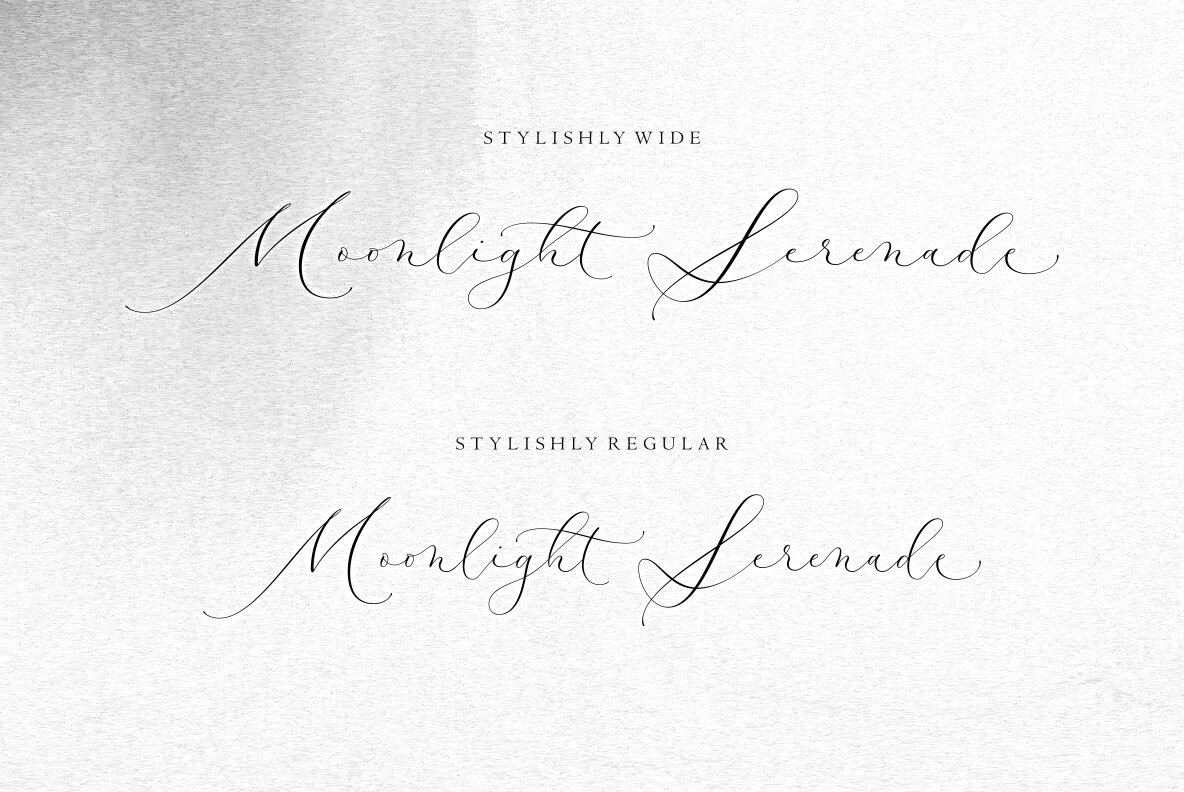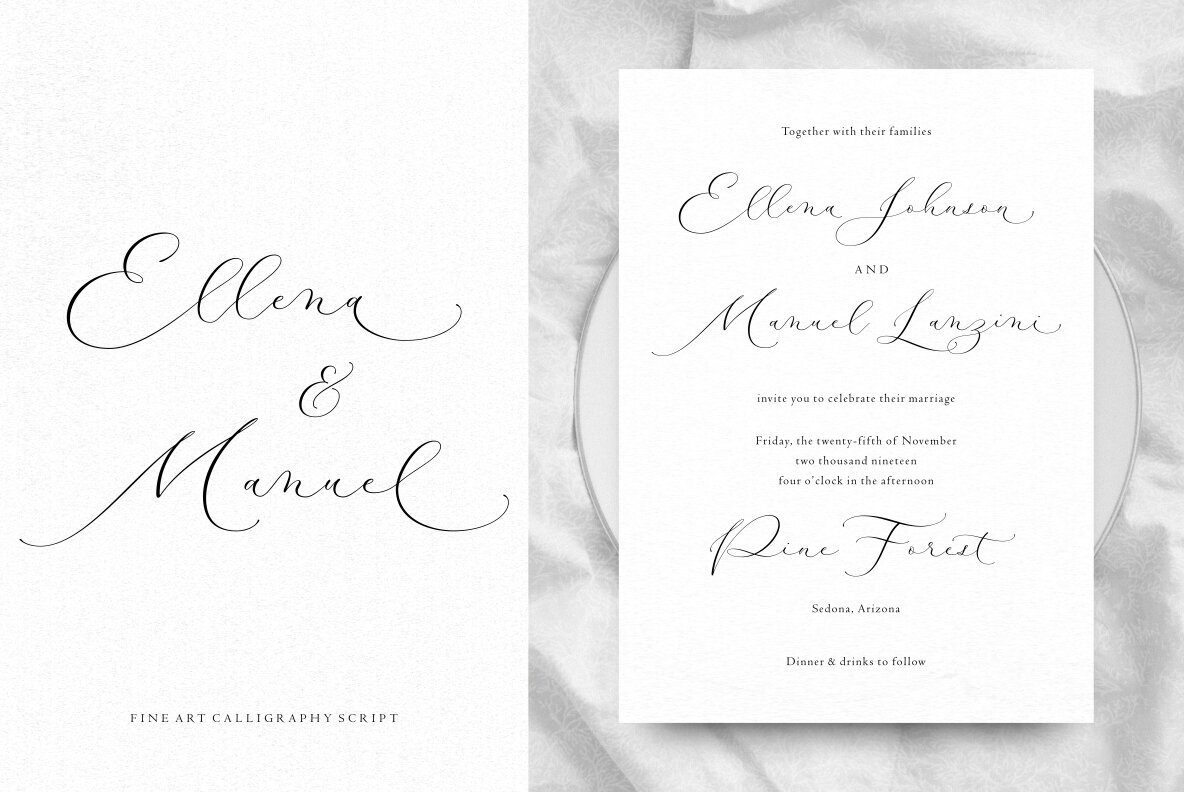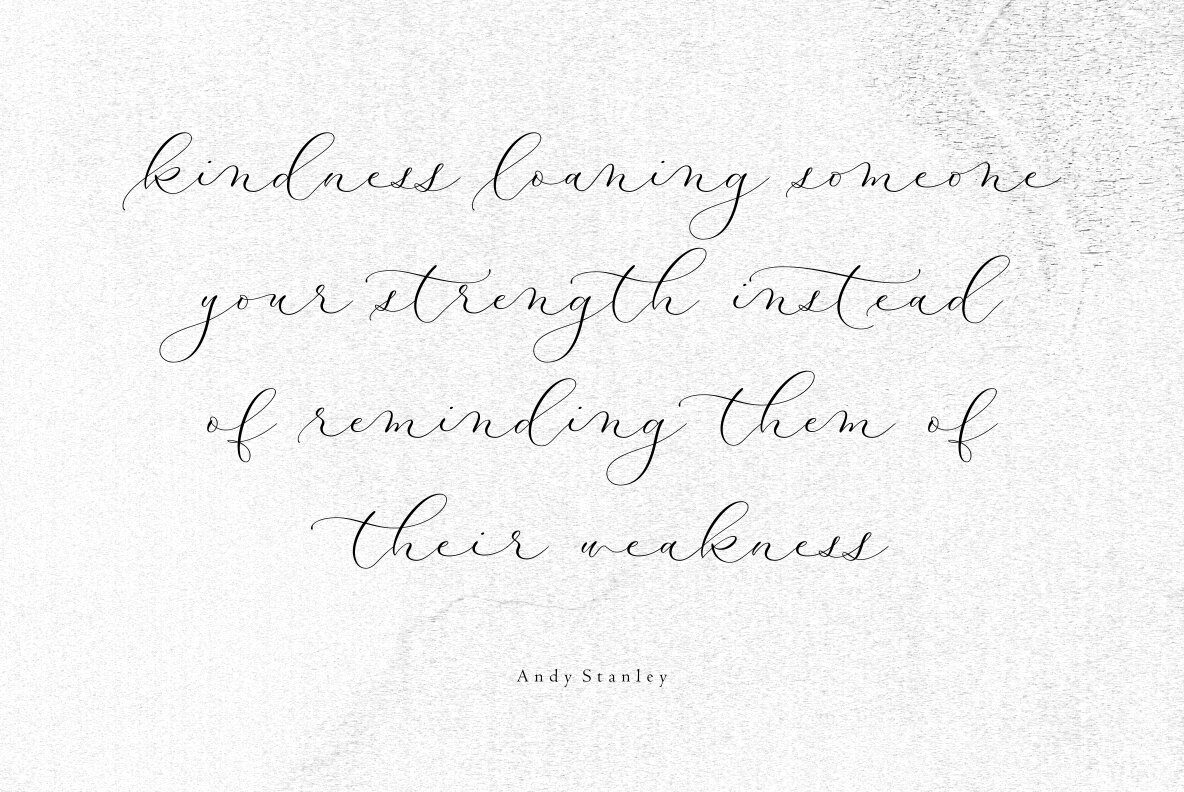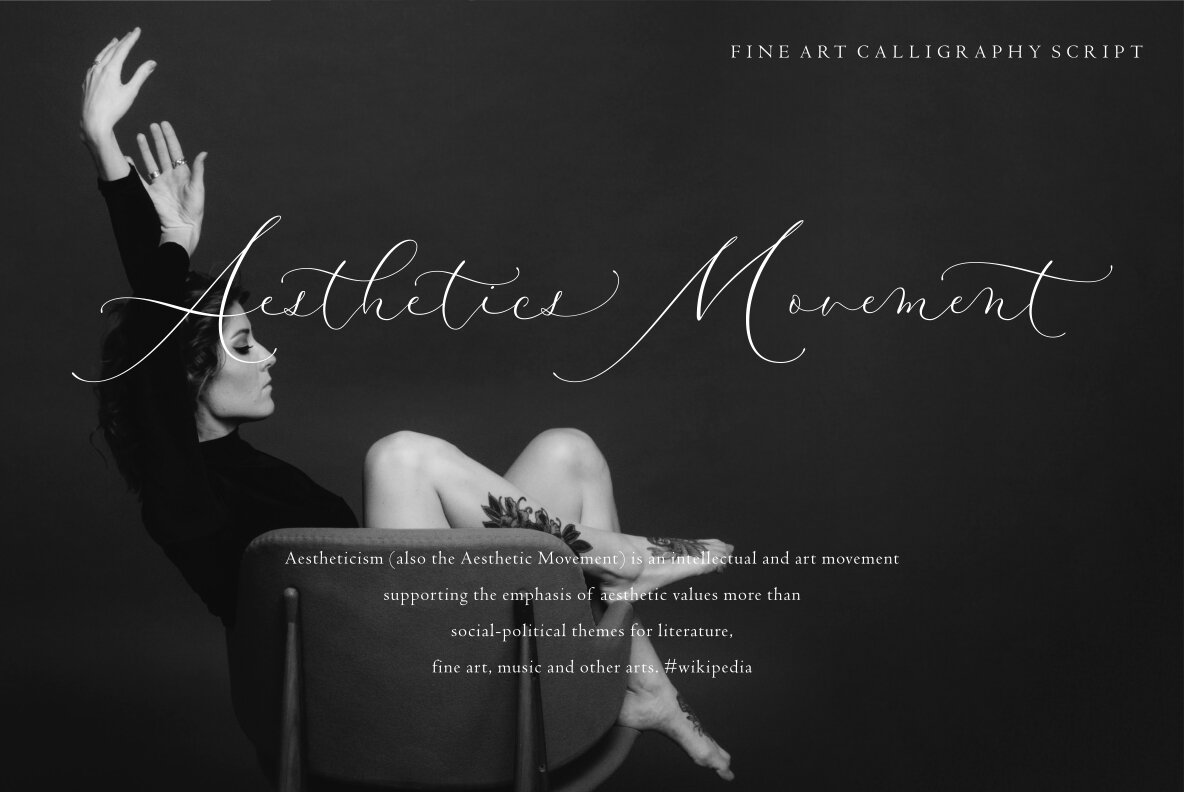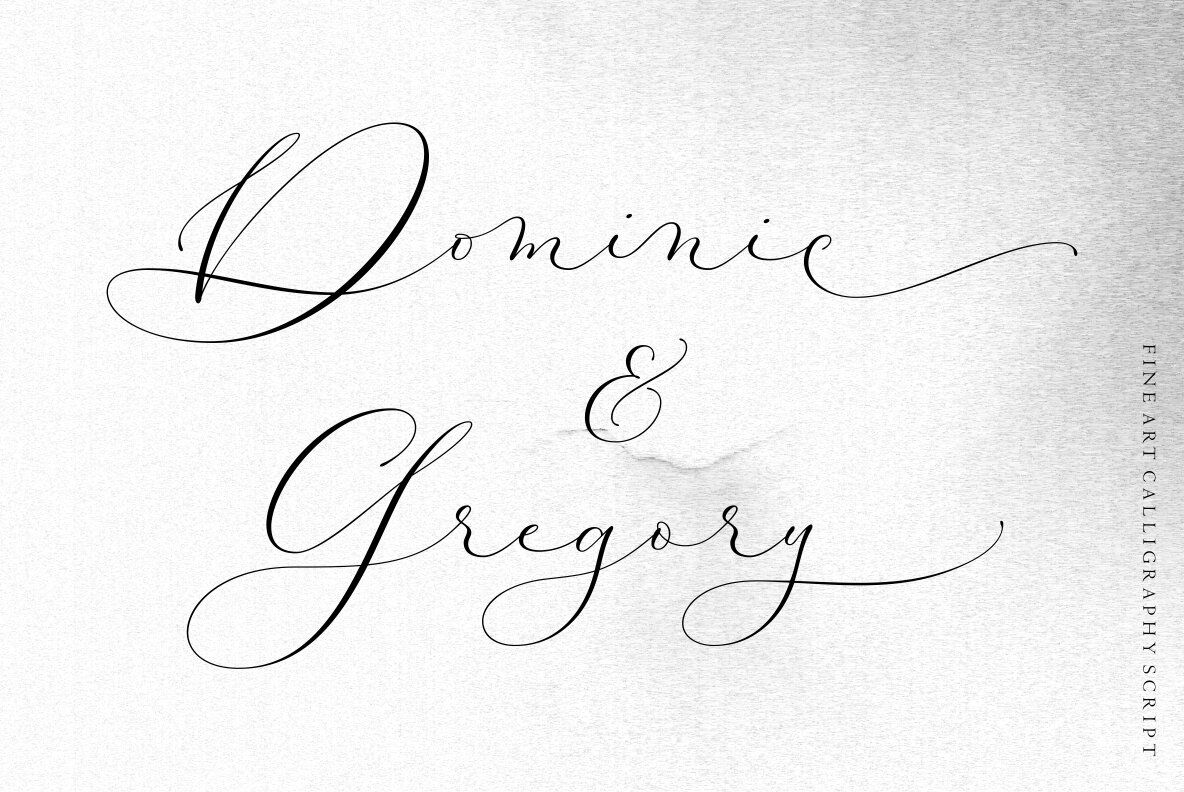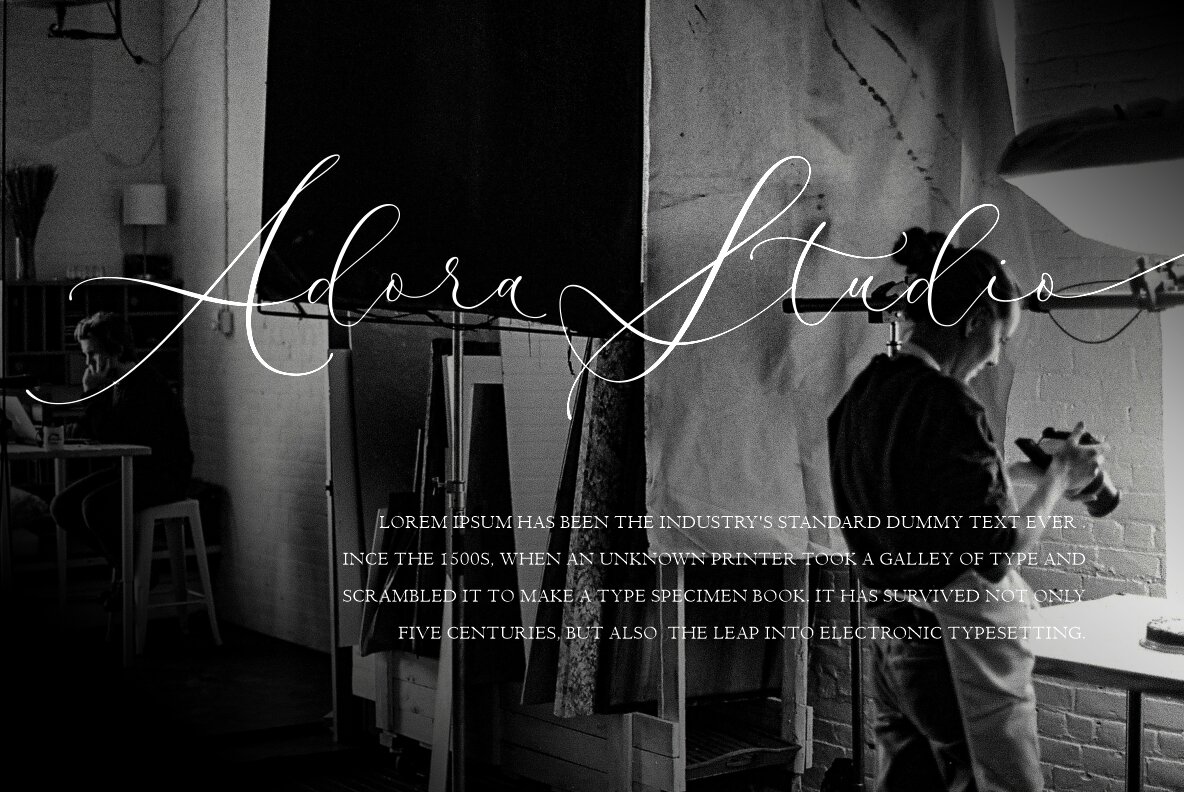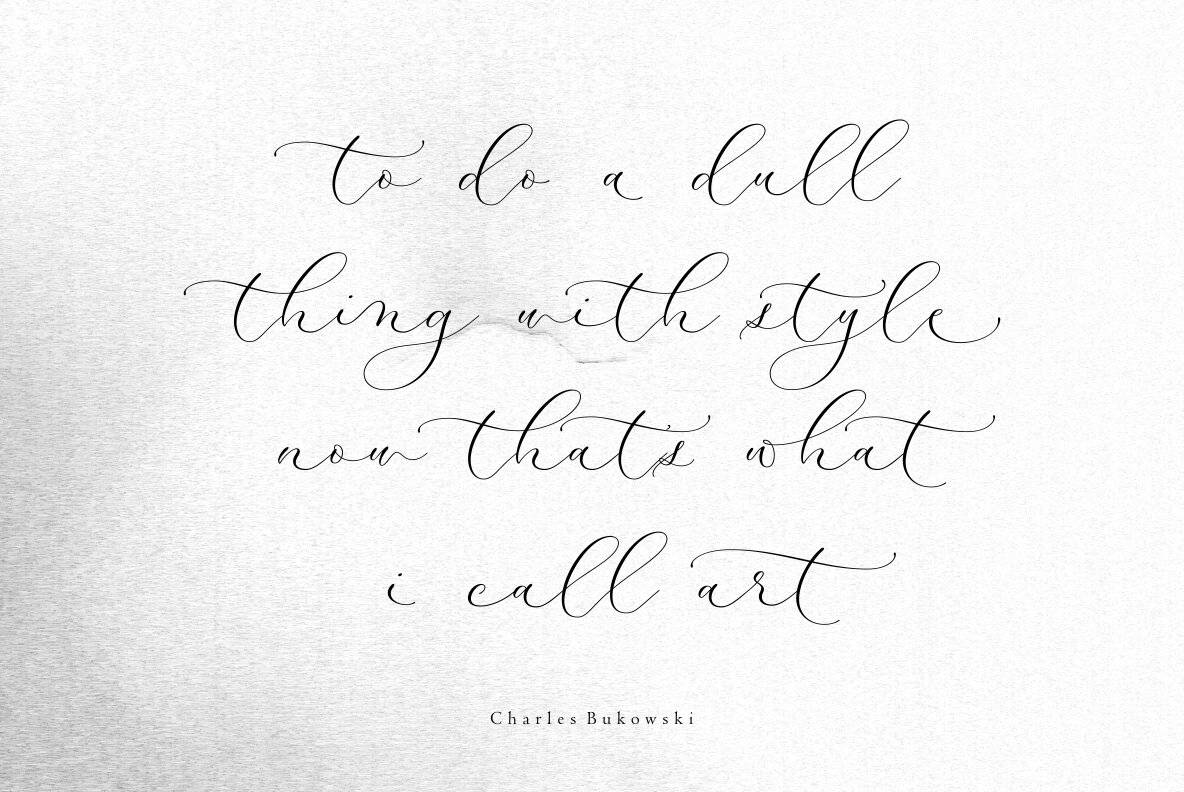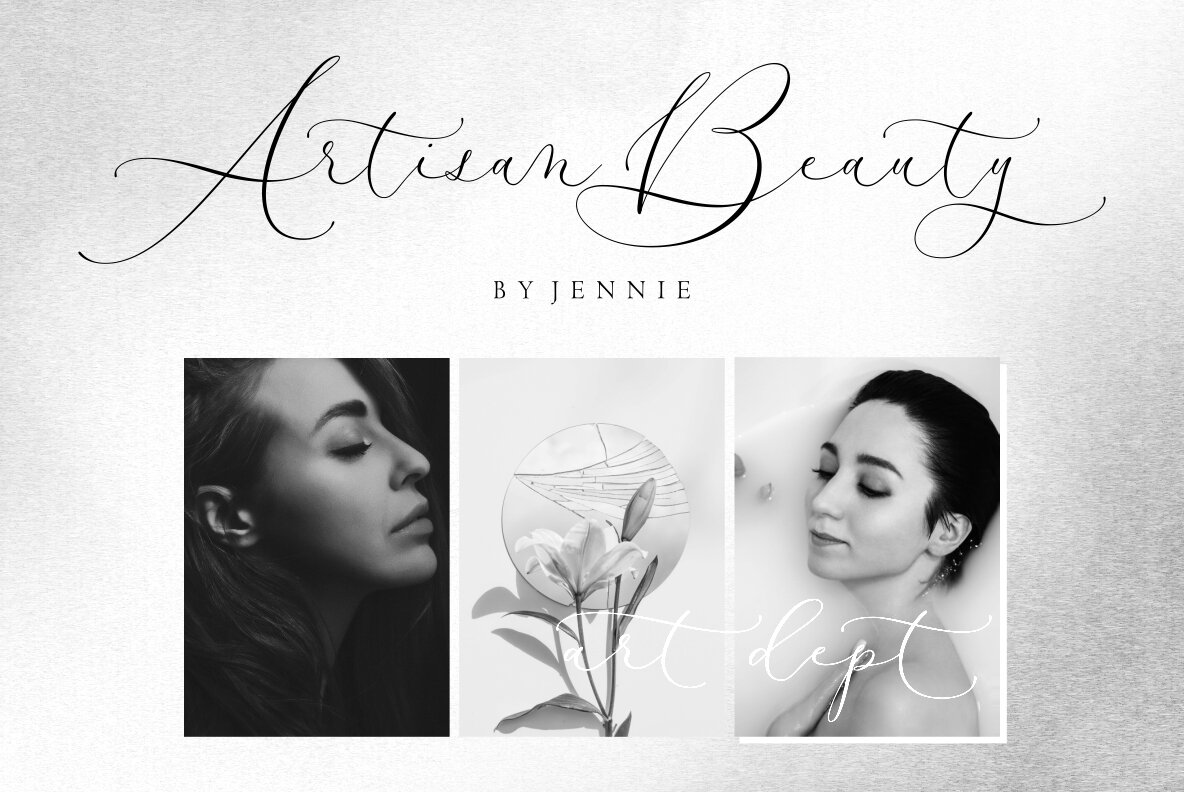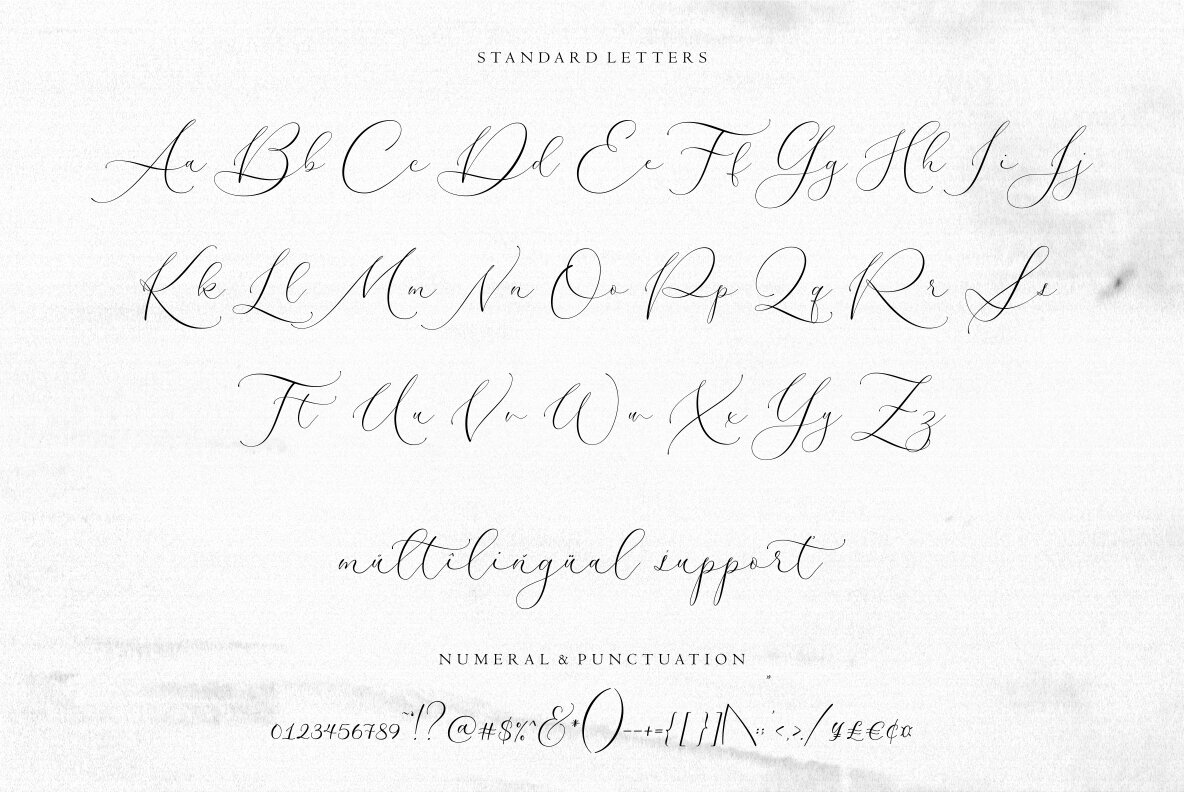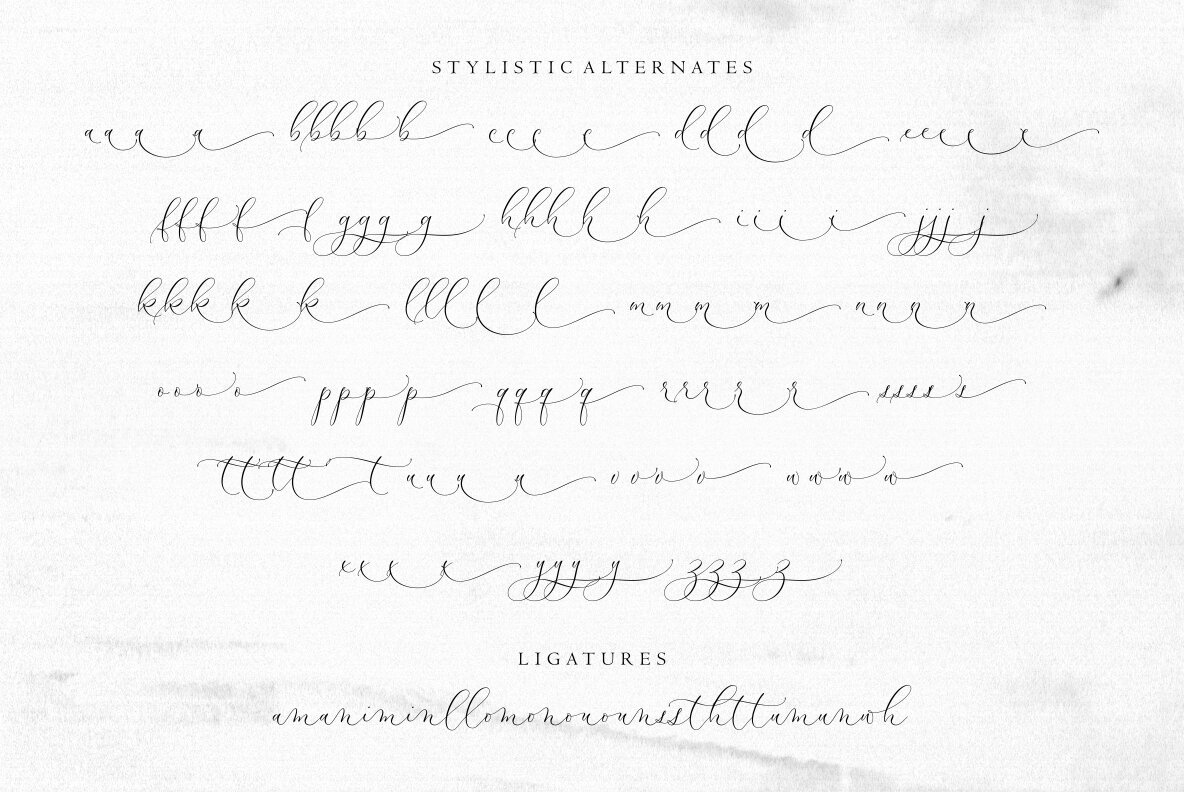
Modella Font
Embrace the elegance of Art-Deco with Modella, a modern script font designed to enhance your wedding invitations and celebration designs with its unique and intricate shapes. Available in two styles—regular and wide—Modella offers a myriad of design possibilities through its thoughtful ligatures, alternative letterforms, and swashes.Modella: Art-Deco Inspired Wedding Fonts